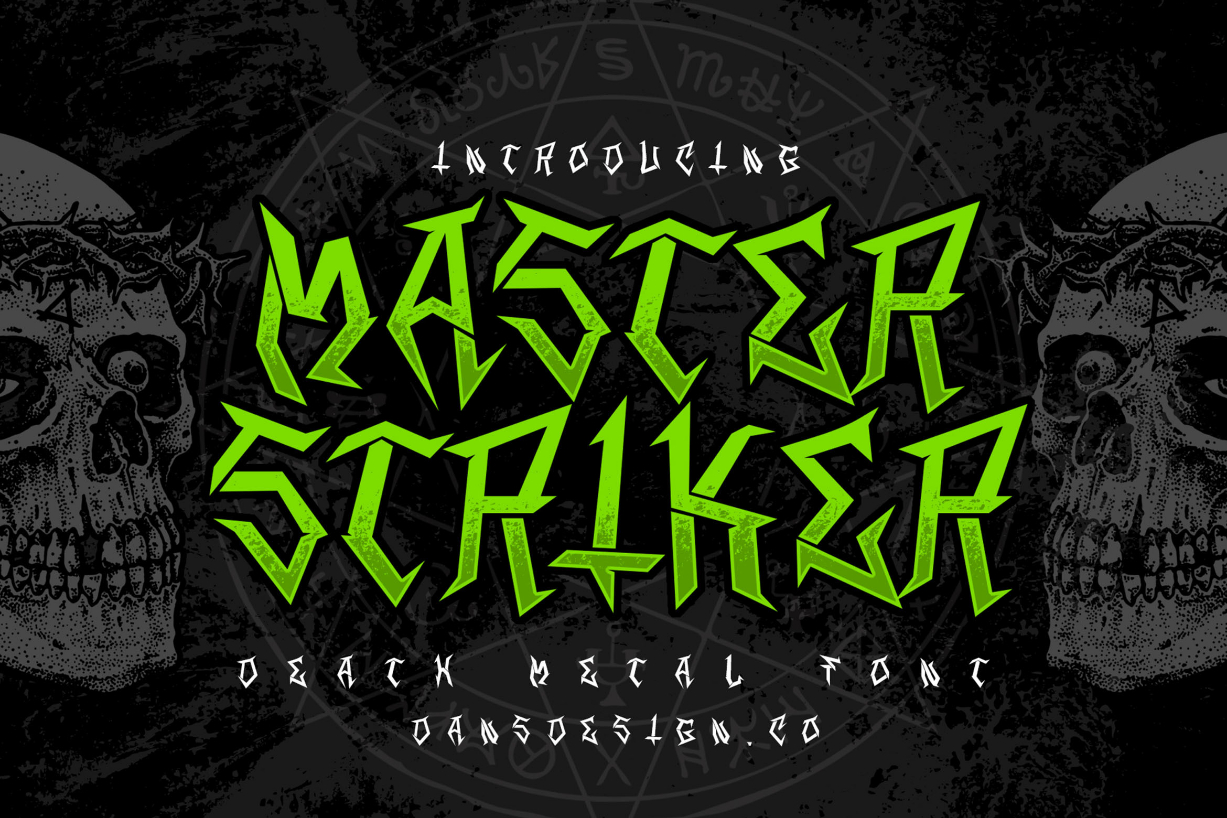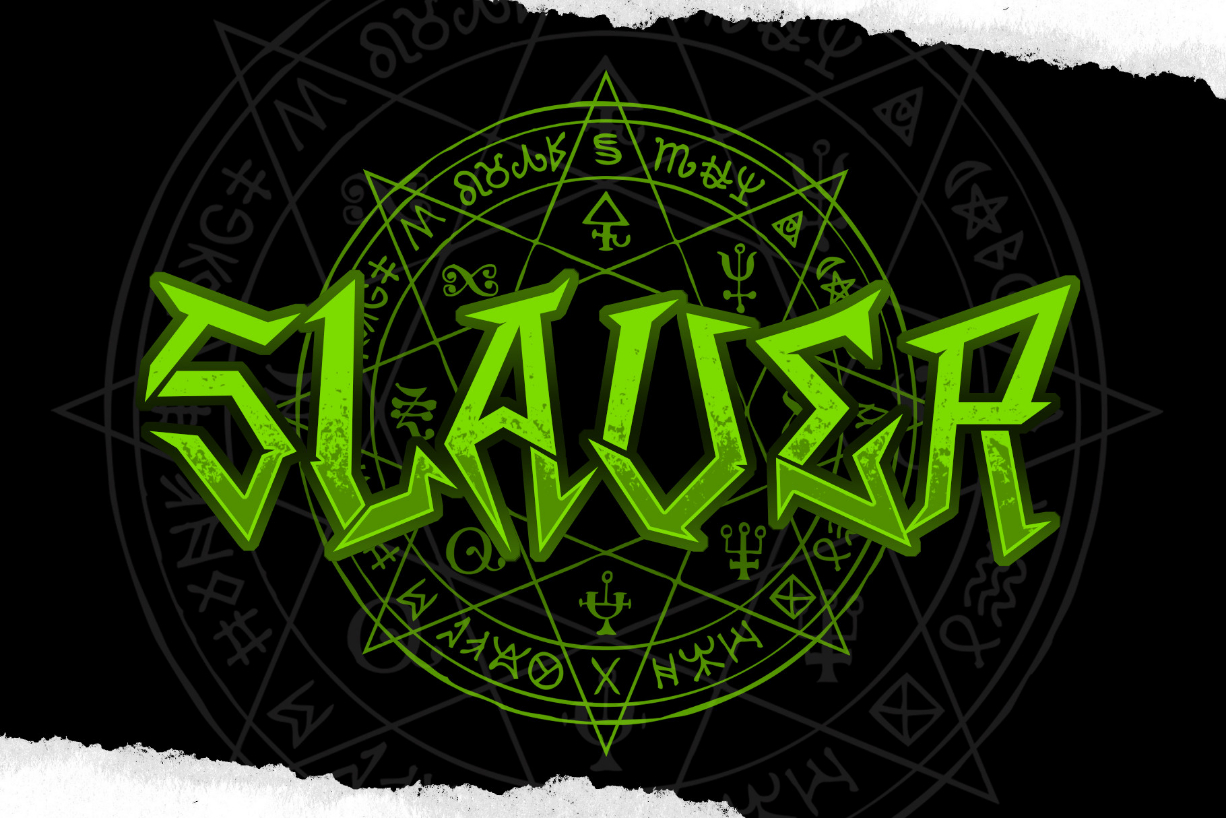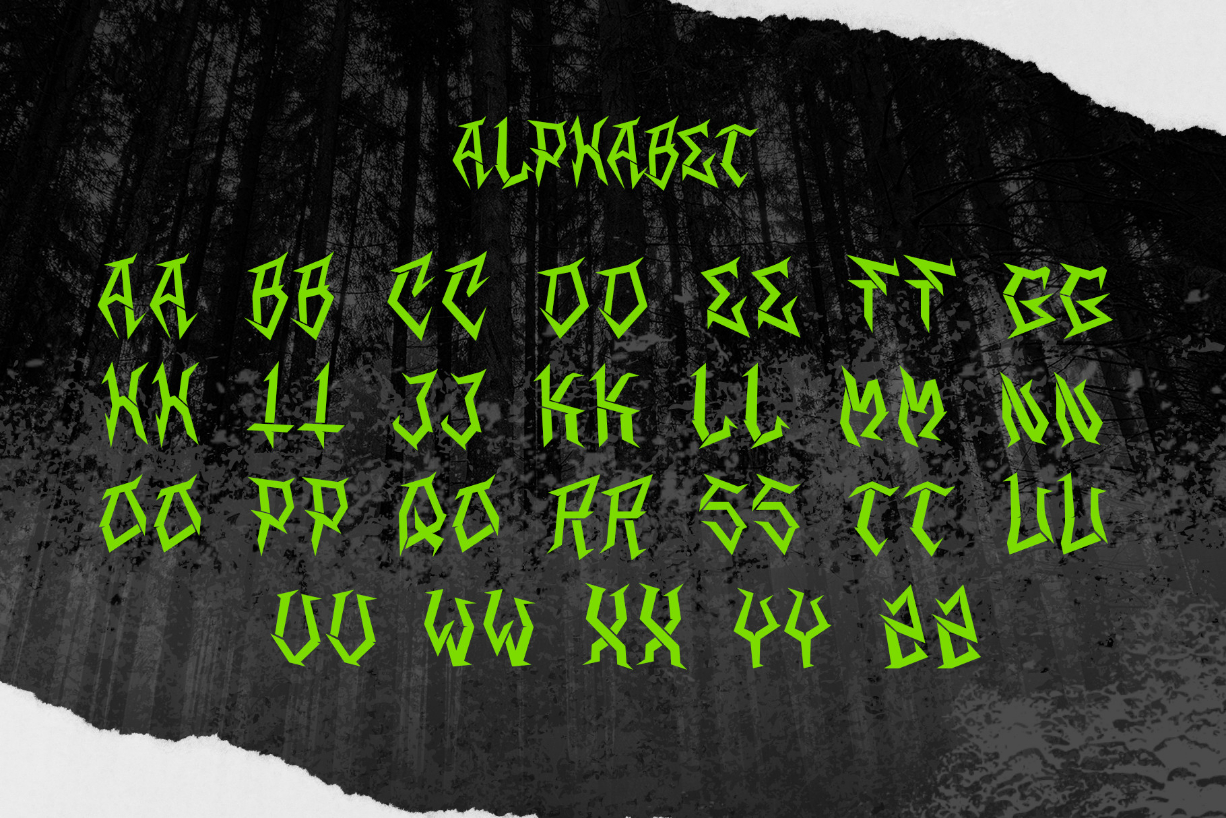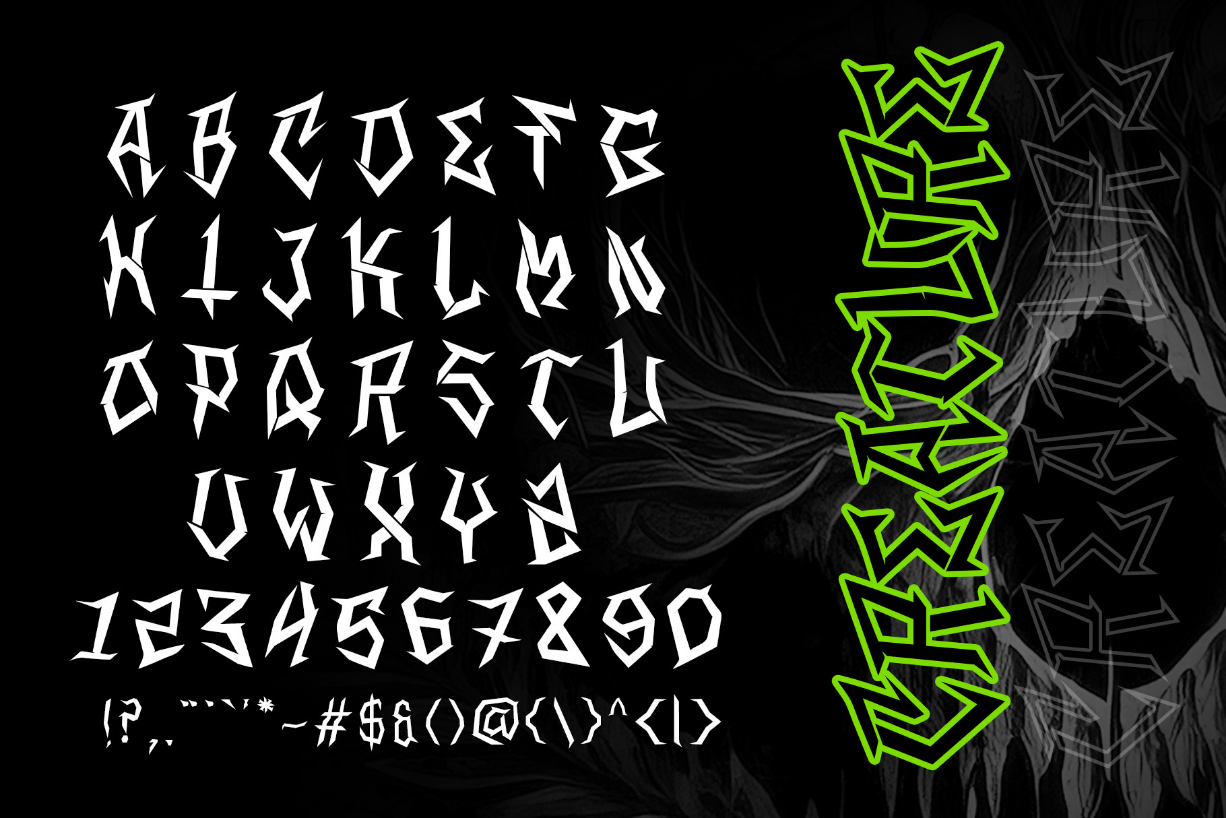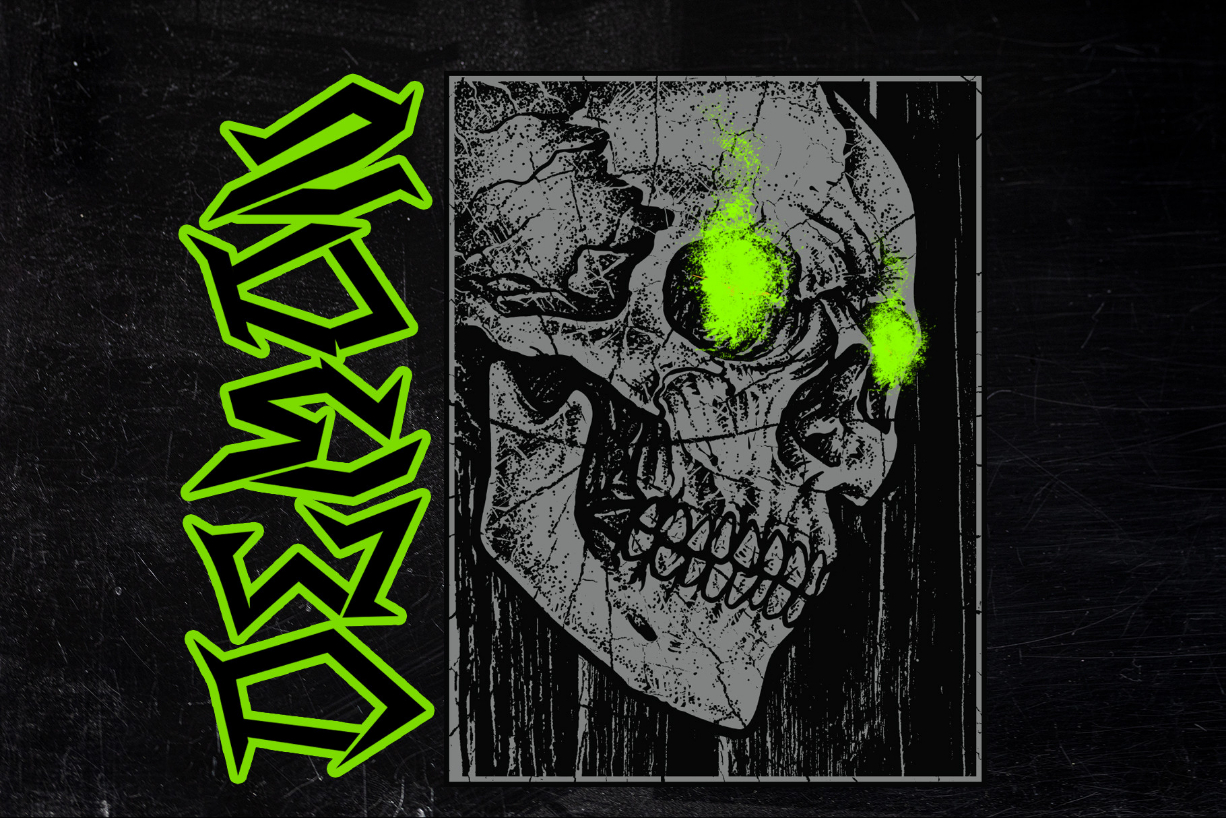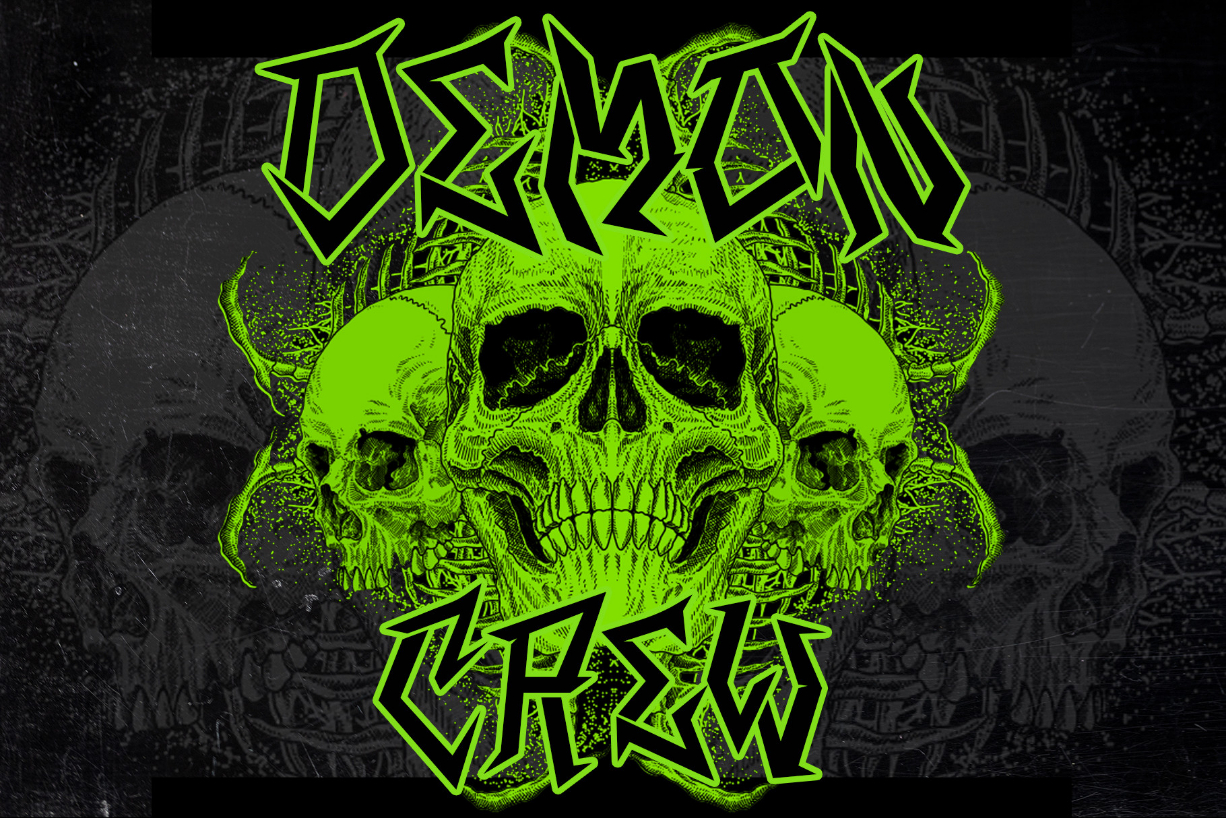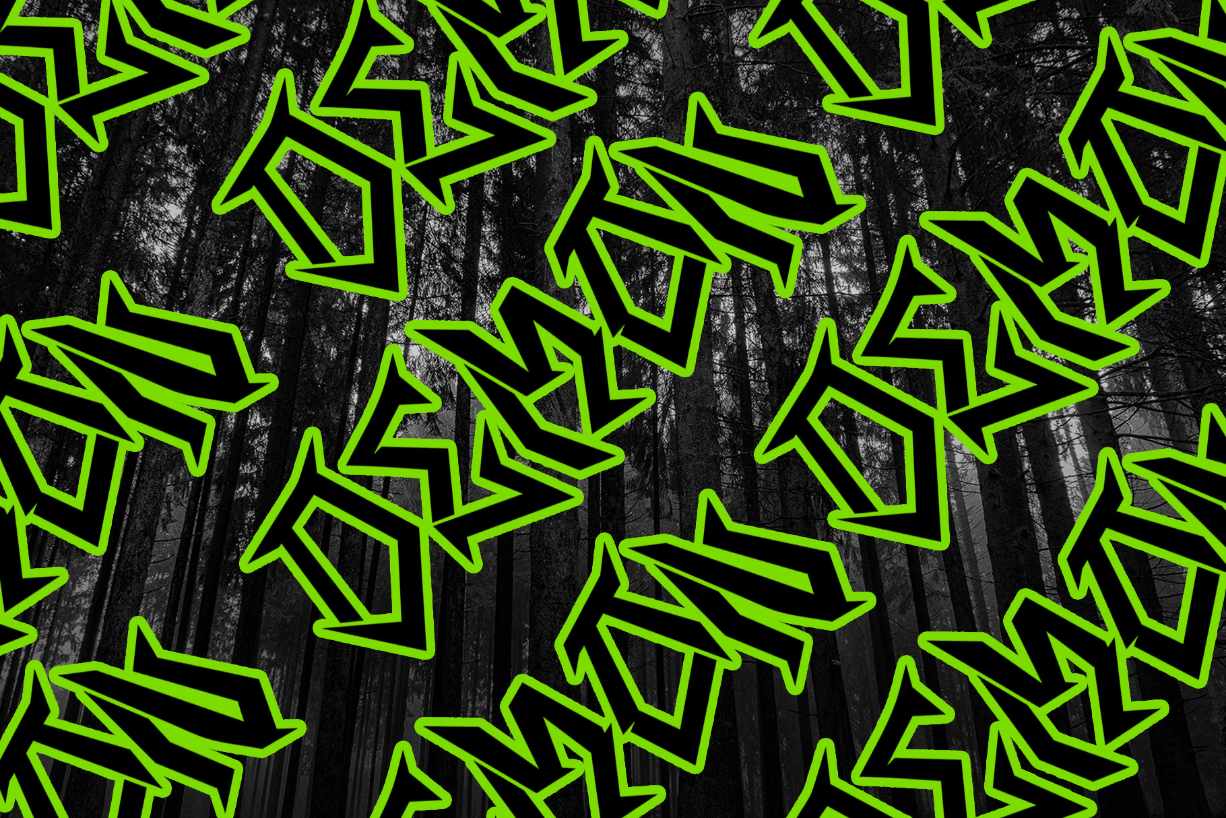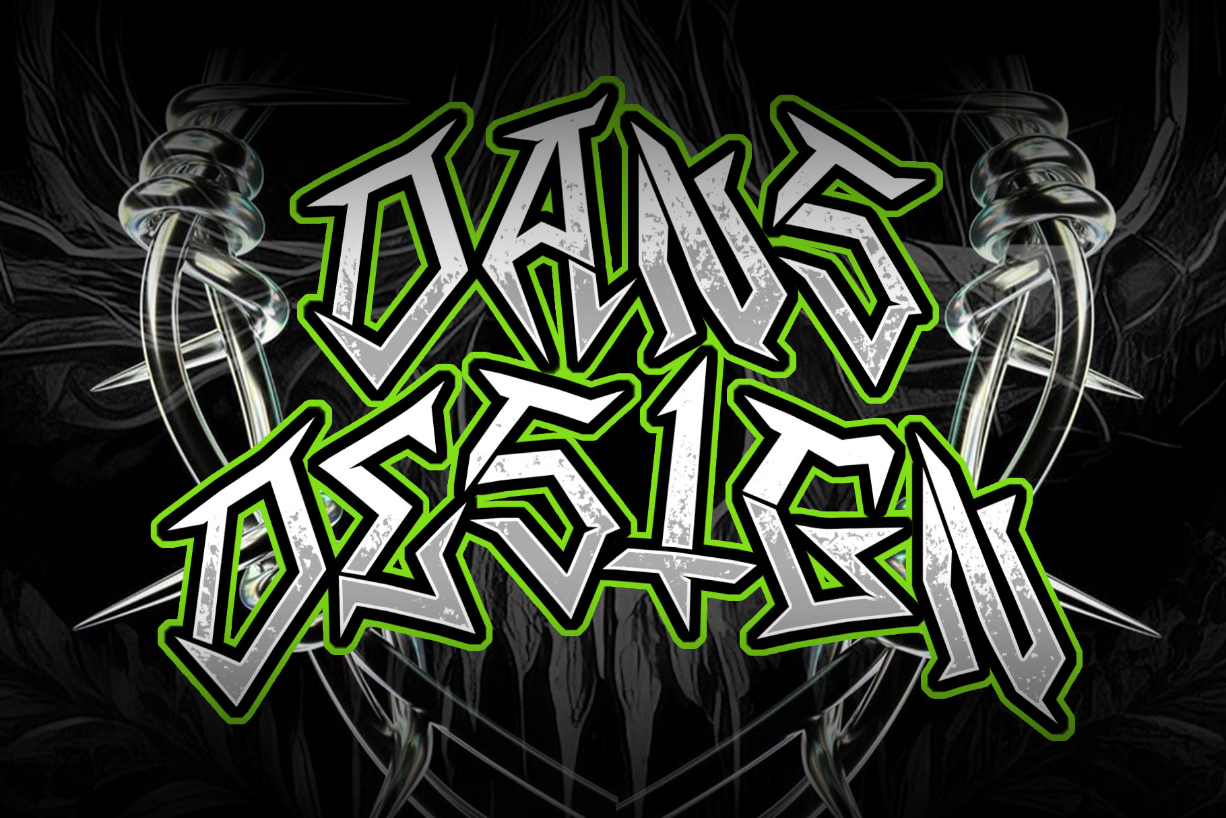
Master Stricker Font
About Master Stricker Font
MASTER STRICKER is a distinct, highly detailed, and Horror Metal Font. It would make a great choice for exquisite Music, Poster, retro-urban designs, tattoo business branding, logos, vintage designs, and more.